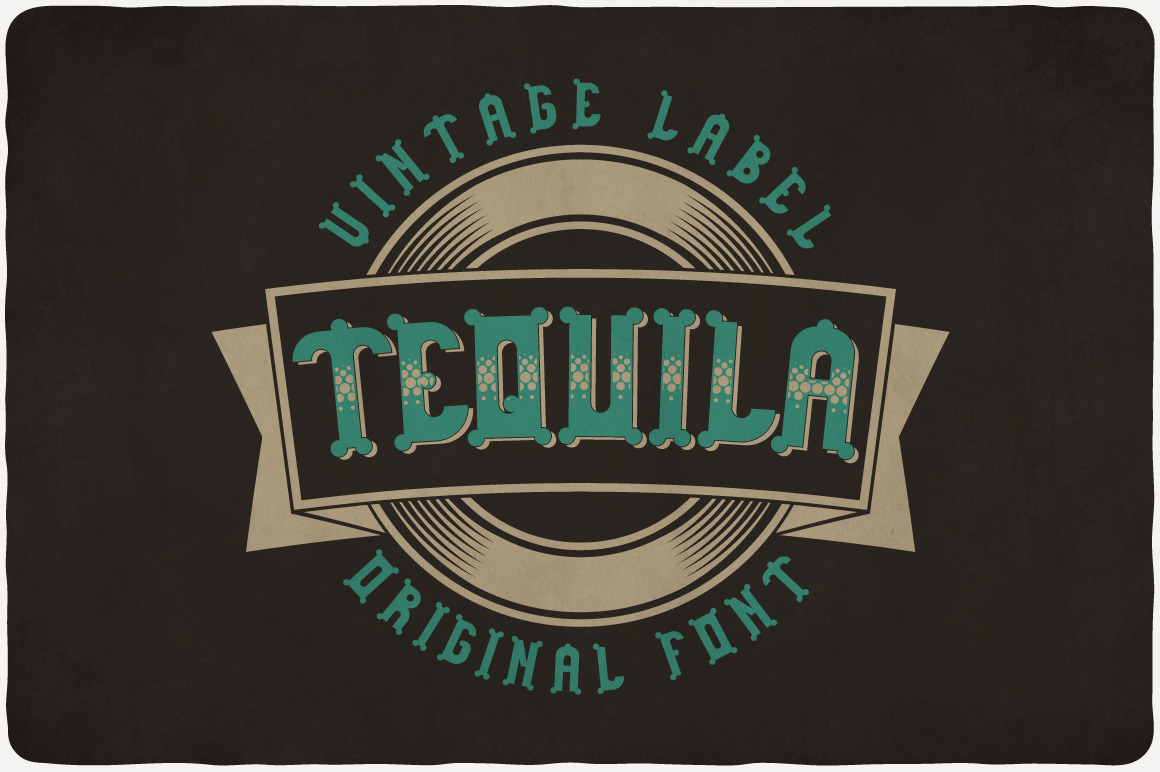
Tequila Typeface
Introducing a funny look label typeface named "Tequila". It contains elements symbolizing water bubbles. Typeface is good viewed on any drink labels design.